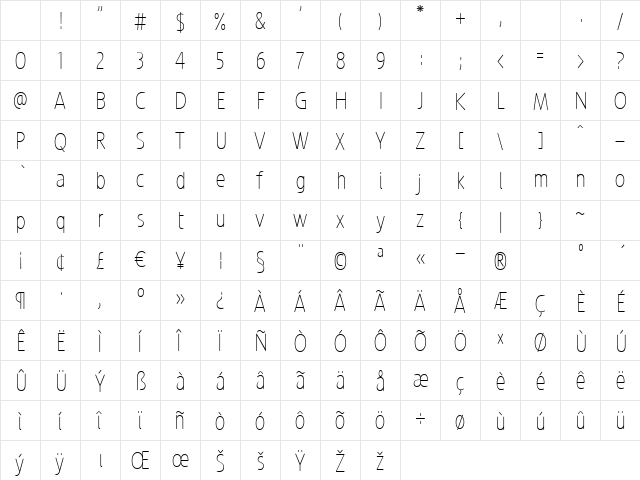
Revalo ModernThin Regular
Design Context for Revalo ModernThin
Revalo ModernThin is a composed and adaptable typeface that performs quietly and consistently across a wide range of design contexts. Its slender proportions lend an understated elegance to any composition.